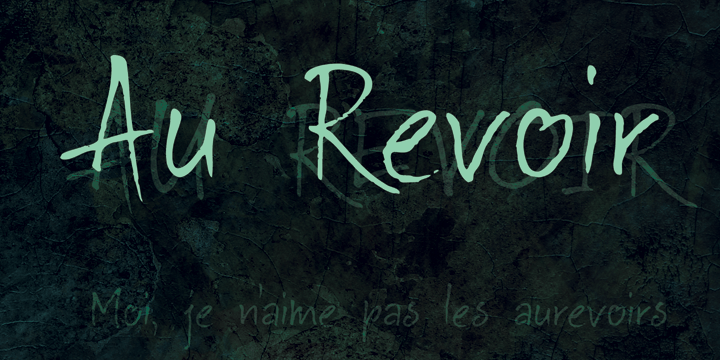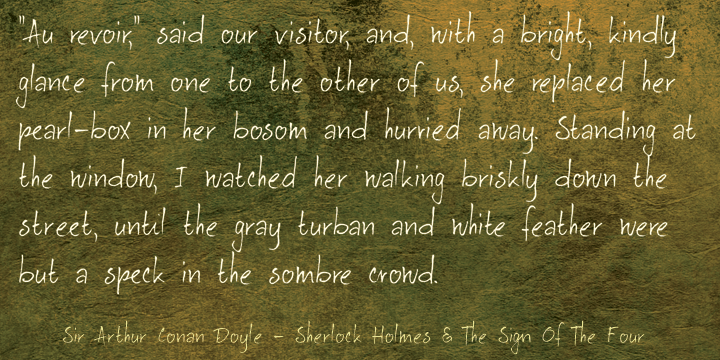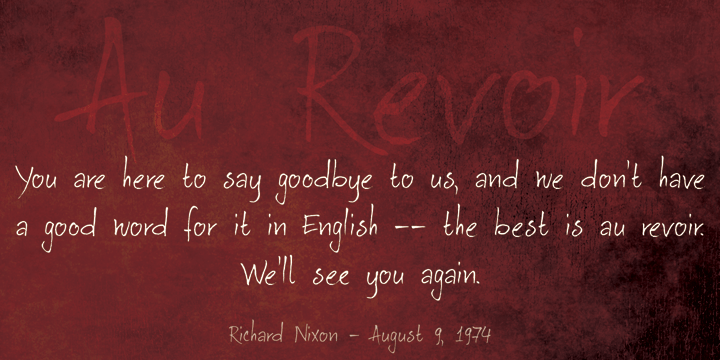
Au Revoir
Au Revoir - saying goodbye is one of the hardest things in life, but in a sense it is also beautiful: there is a promise of seeing each other again, as ?Au revoir? literally means: 'to the next time we see one another?.
Au Revoir font is slightly cursive, elegant without being posh, simple and legible. You could write a poem or a farewell letter with it, but I guess its simplicity lets you use it in various other, less dramatic, designs.